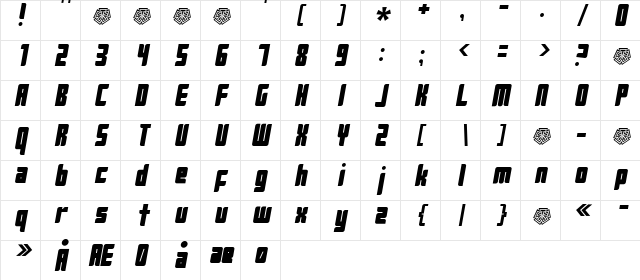
Push Black Regular
Design Context for Push Black Typeface
Push Black offers clean, dependable letterforms without strong stylistic allegiance, making it a practical choice for designers who need flexibility.
Pro Tip: Pair Push Black with a font of contrasting weight or personality to build a more expressive typographic hierarchy.